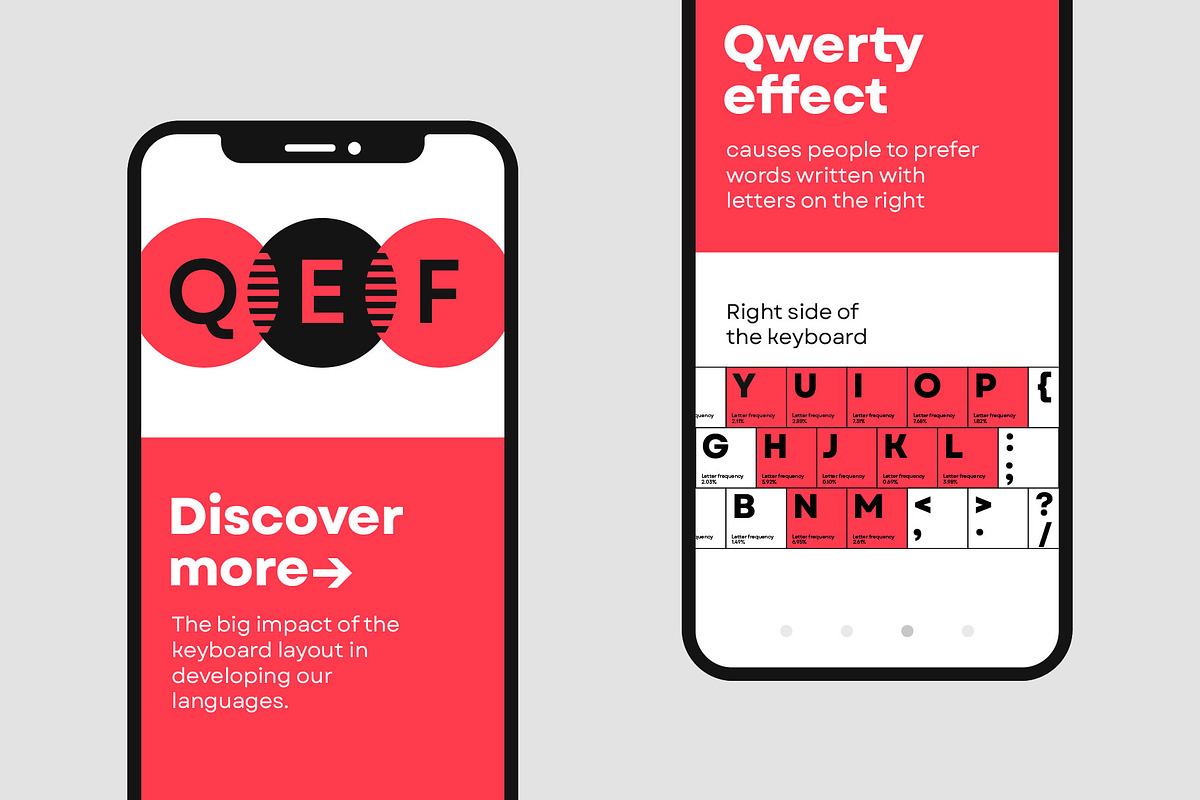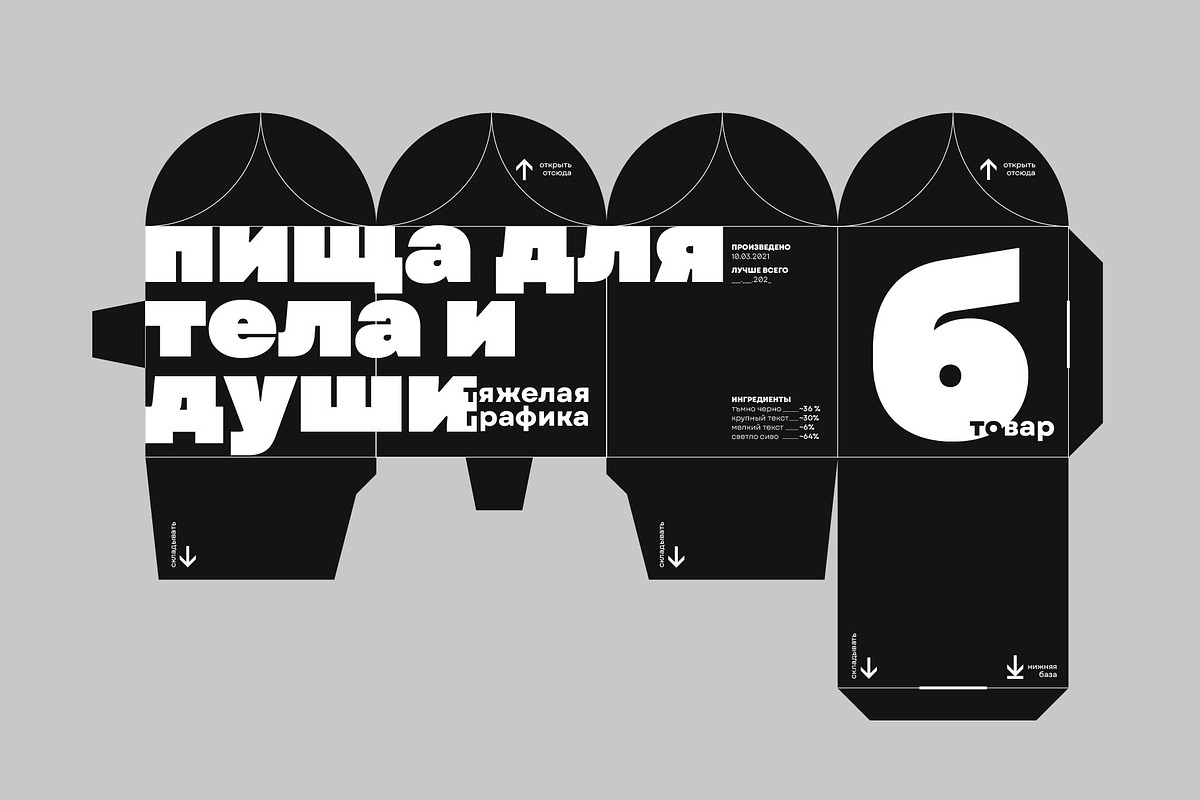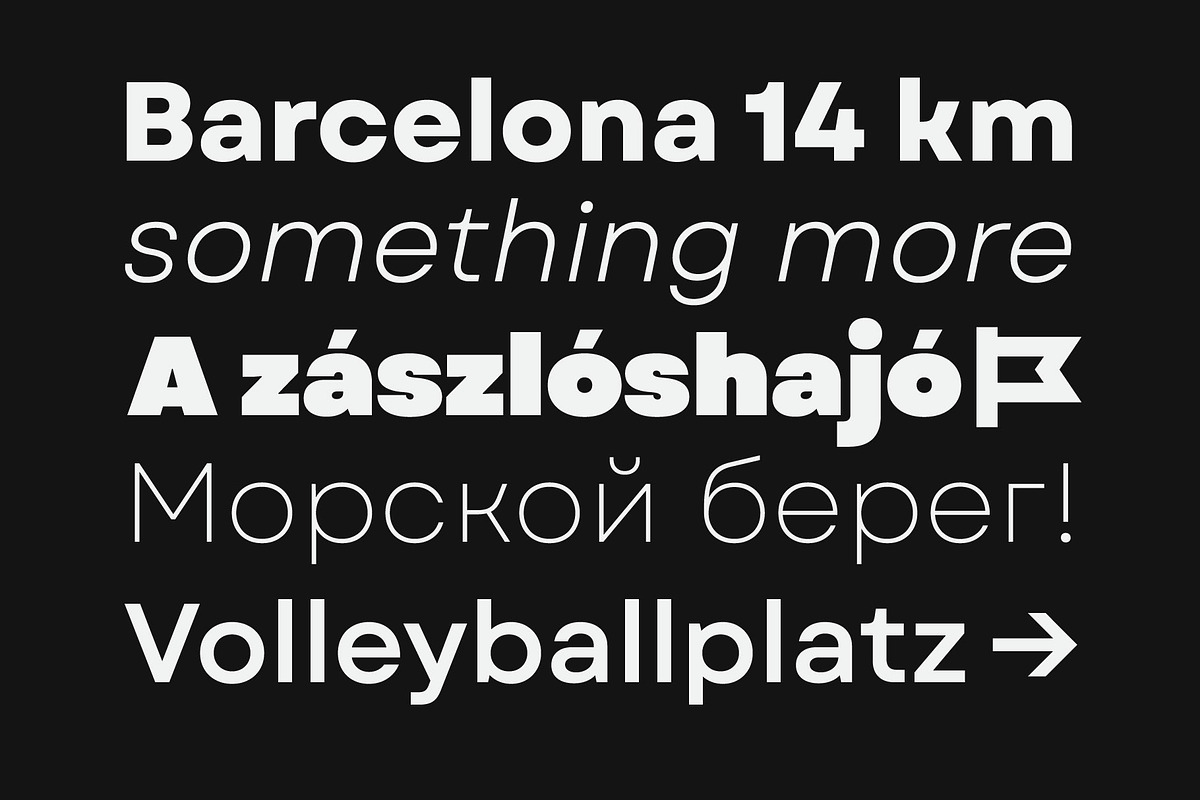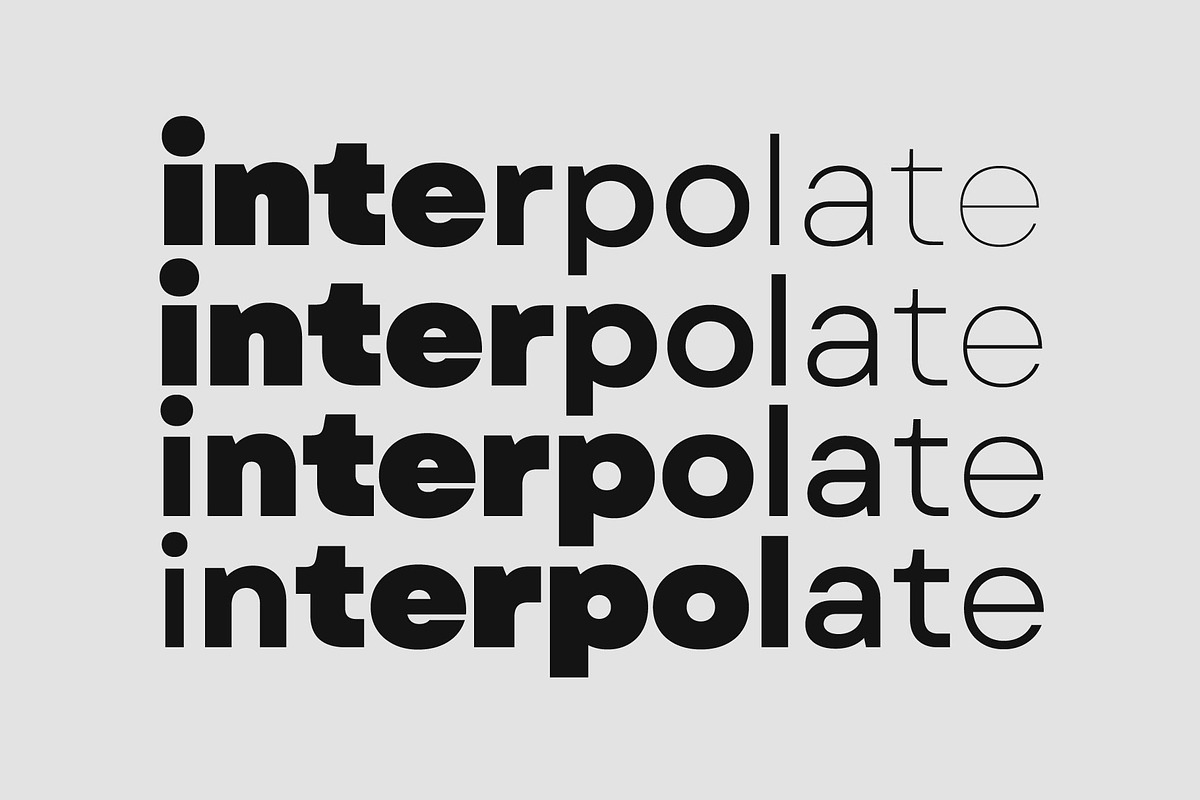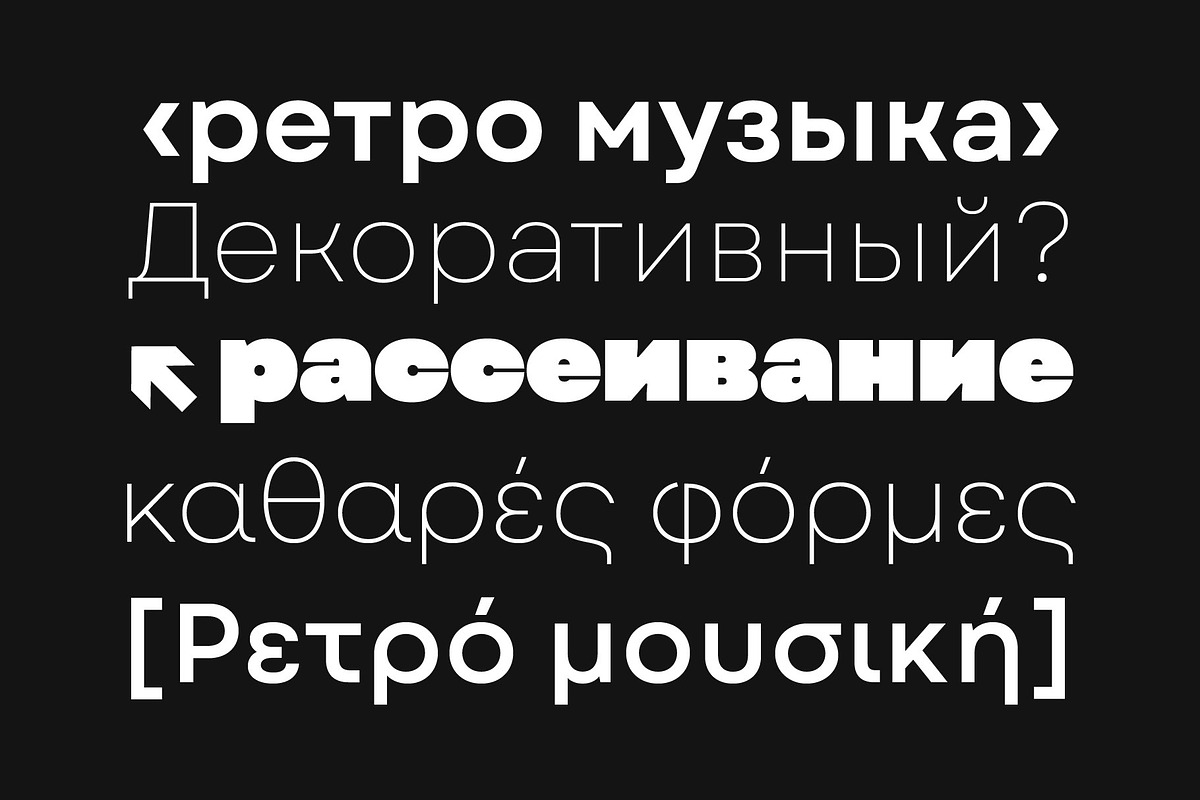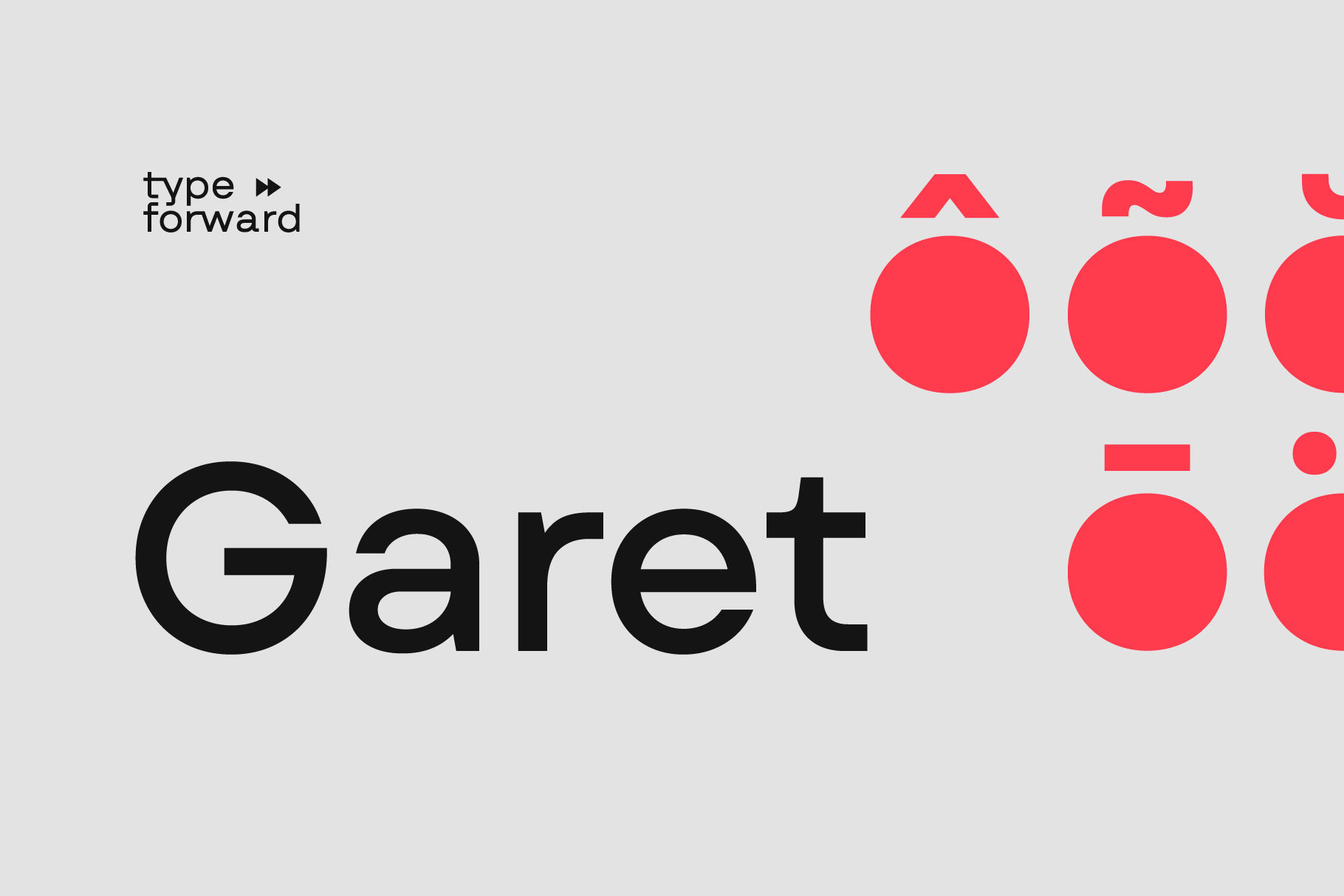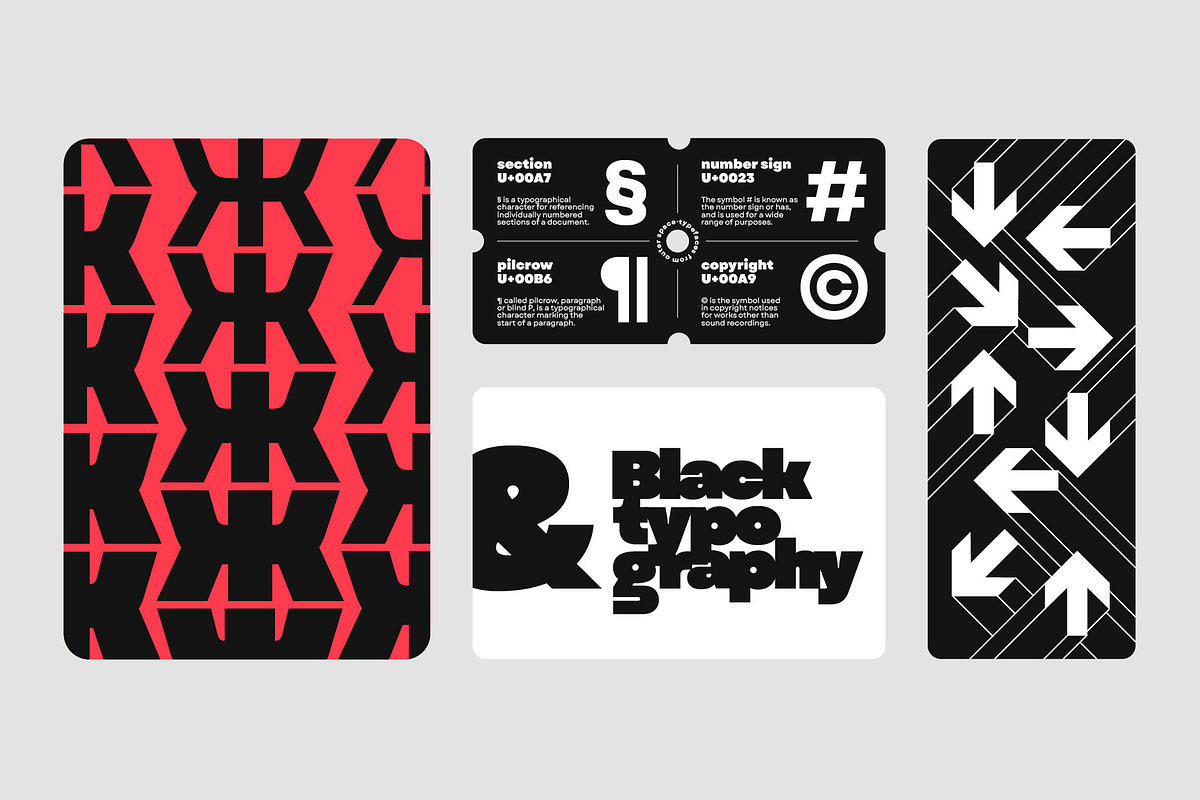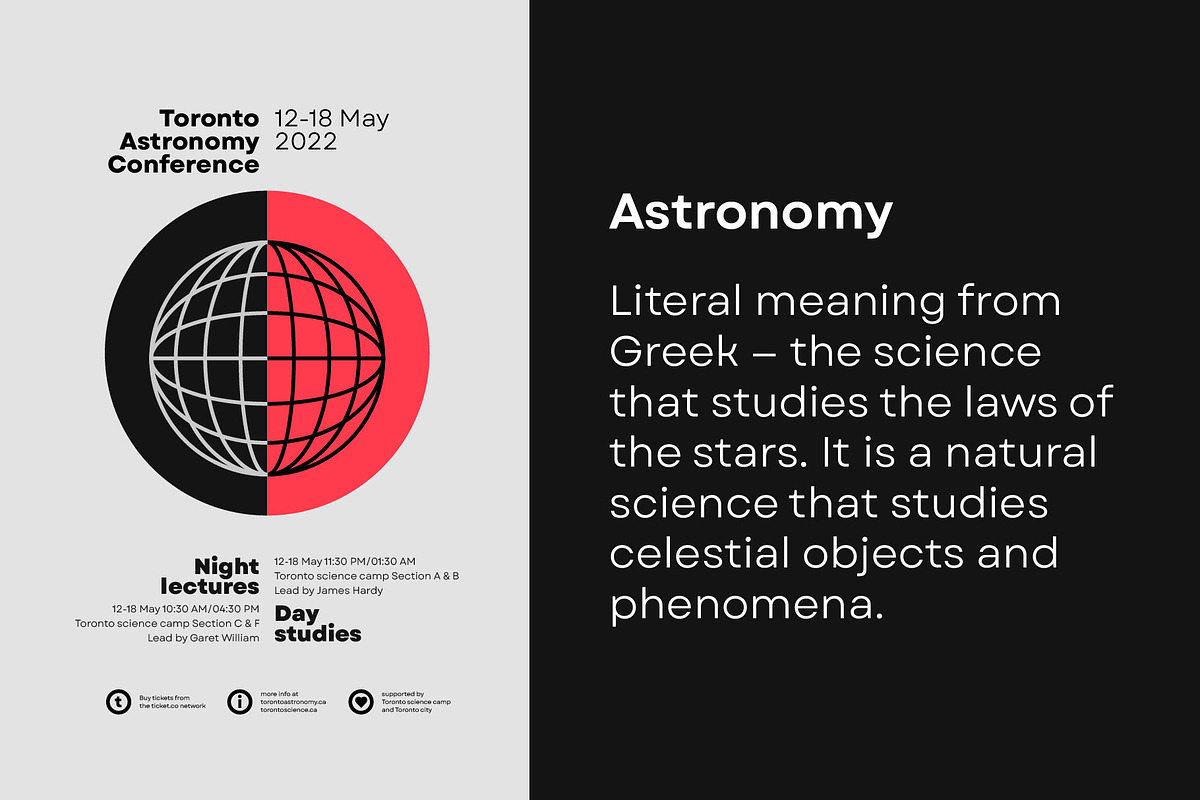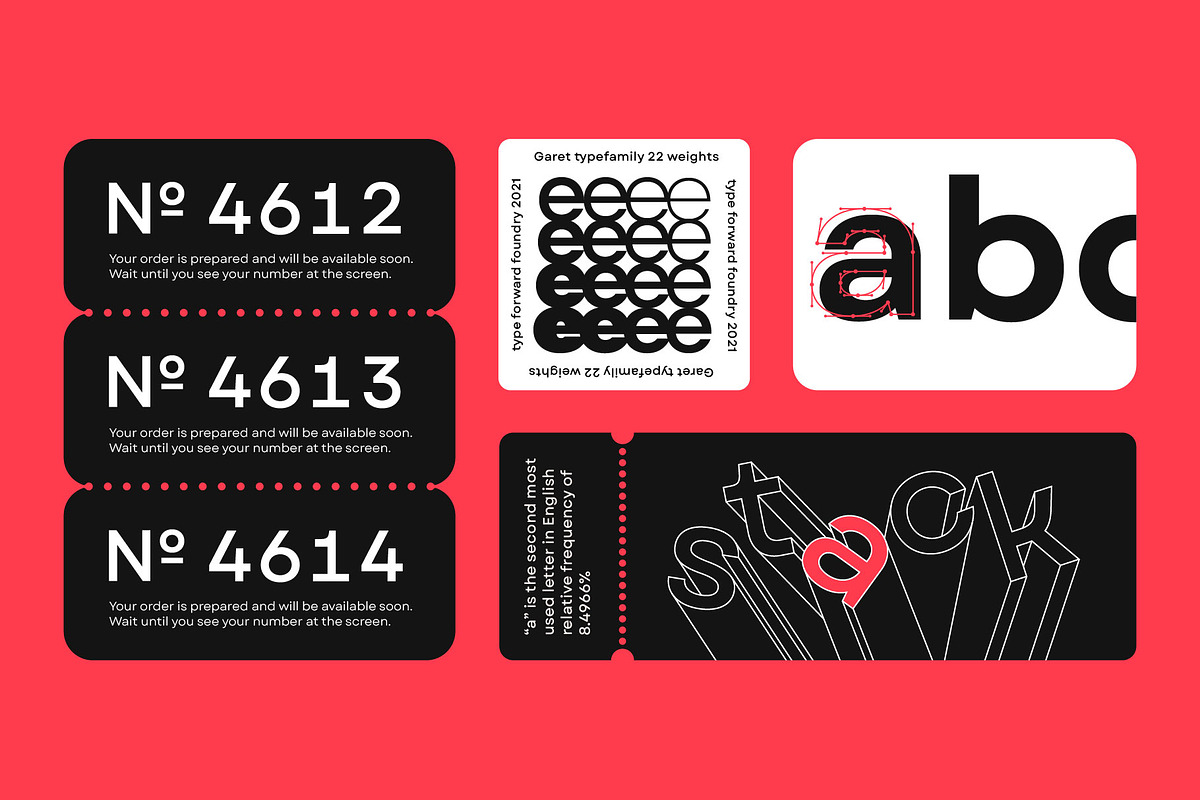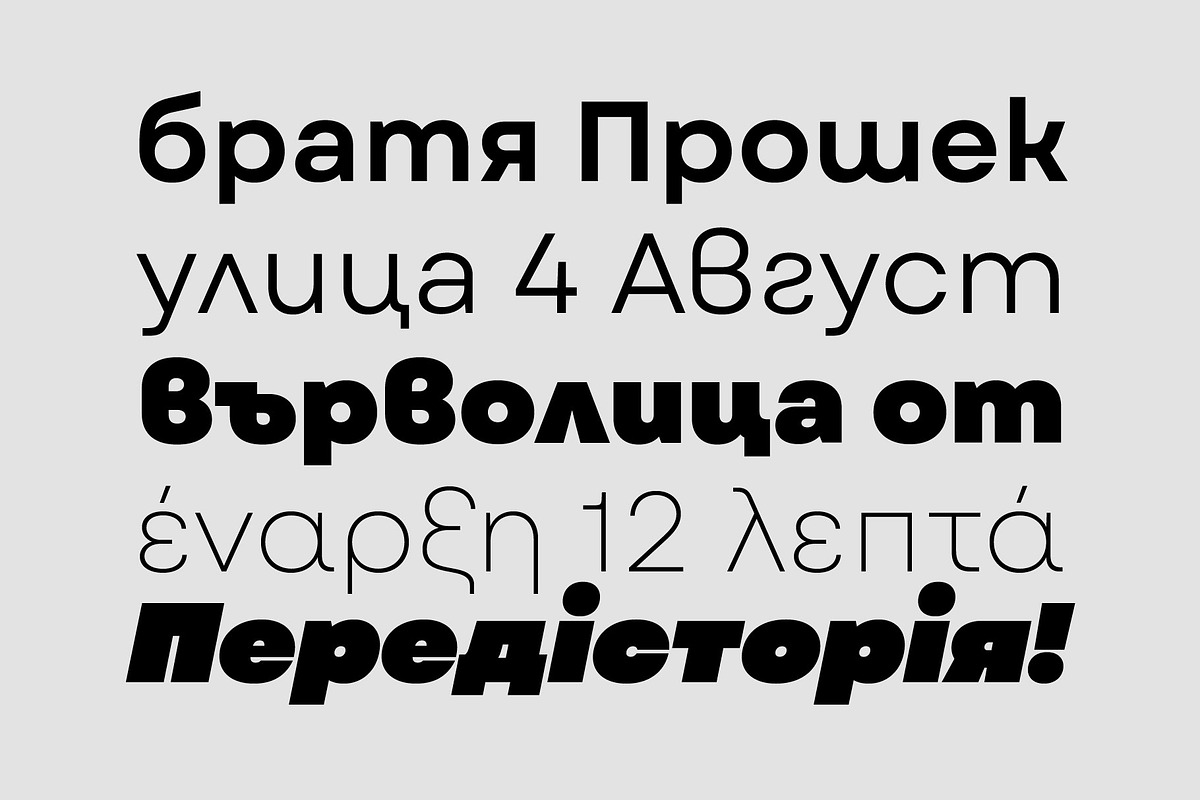
Garet Font Family
Garet is a modern geometric sans serif.
It is characterised by high x-height, clean and soft letterforms with a smooth masculine tone. Garet derives its distinctive oval shapes from the optically perfect circle and has closed counters to further emphasise that form.
The Garet type family consists of 11 weights ranging from quite thin to extremely fat and their corresponding Italics to make a total of 22 fonts. And all of them are combined into one variable font that will give you unlimited opportunities to explore and express without the restrictions of the predefined weights.
We understand the need for more extensive language support. That’s why the typeface includes Extended Latin and Cyrillic and covers more than 200 languages.
Garet also comes with several alternative stylistic sets that will change the overall look of a paragraph, giving it a slightly different appearance. In addition to that, the type family is enriched with an extensive list of OpenType features for advanced typographic layout, including standard and discretionary ligatures, tabular and small figures, fractions, language localizations, case sensitive punctuation, and more.
Тhe wide variety of weights, characters, and additional features allows Garet to be implemented equally well both in print and on-screen media.